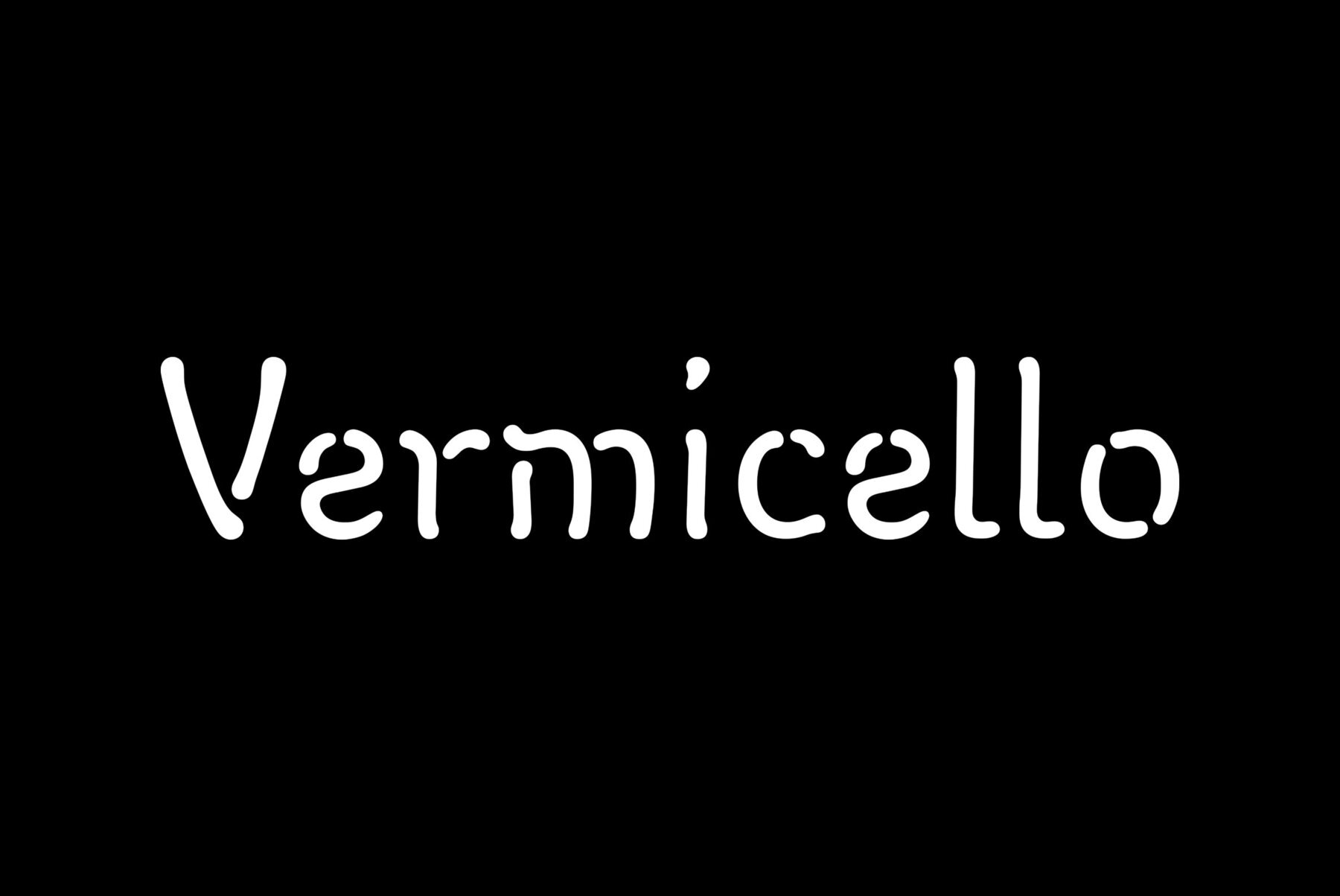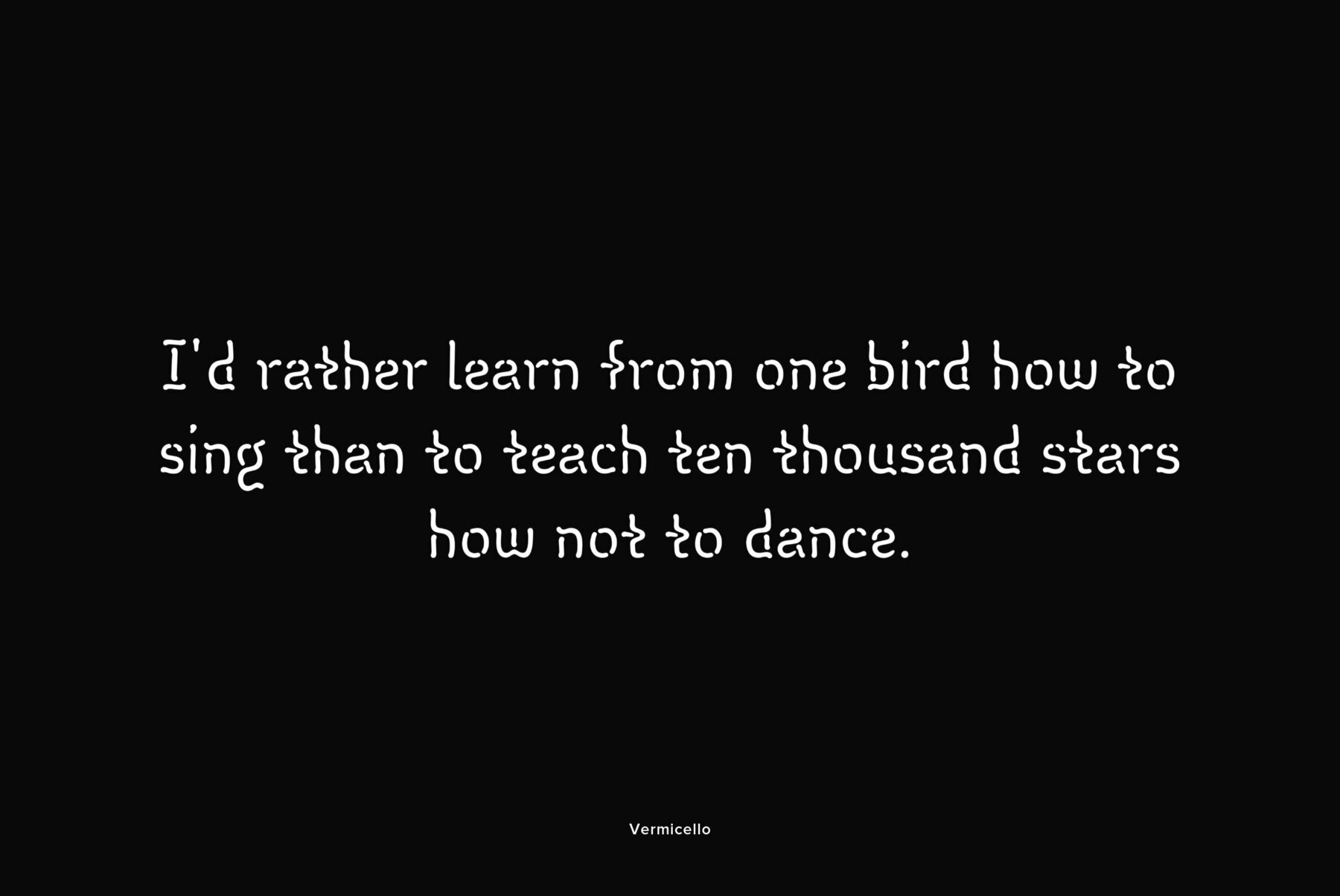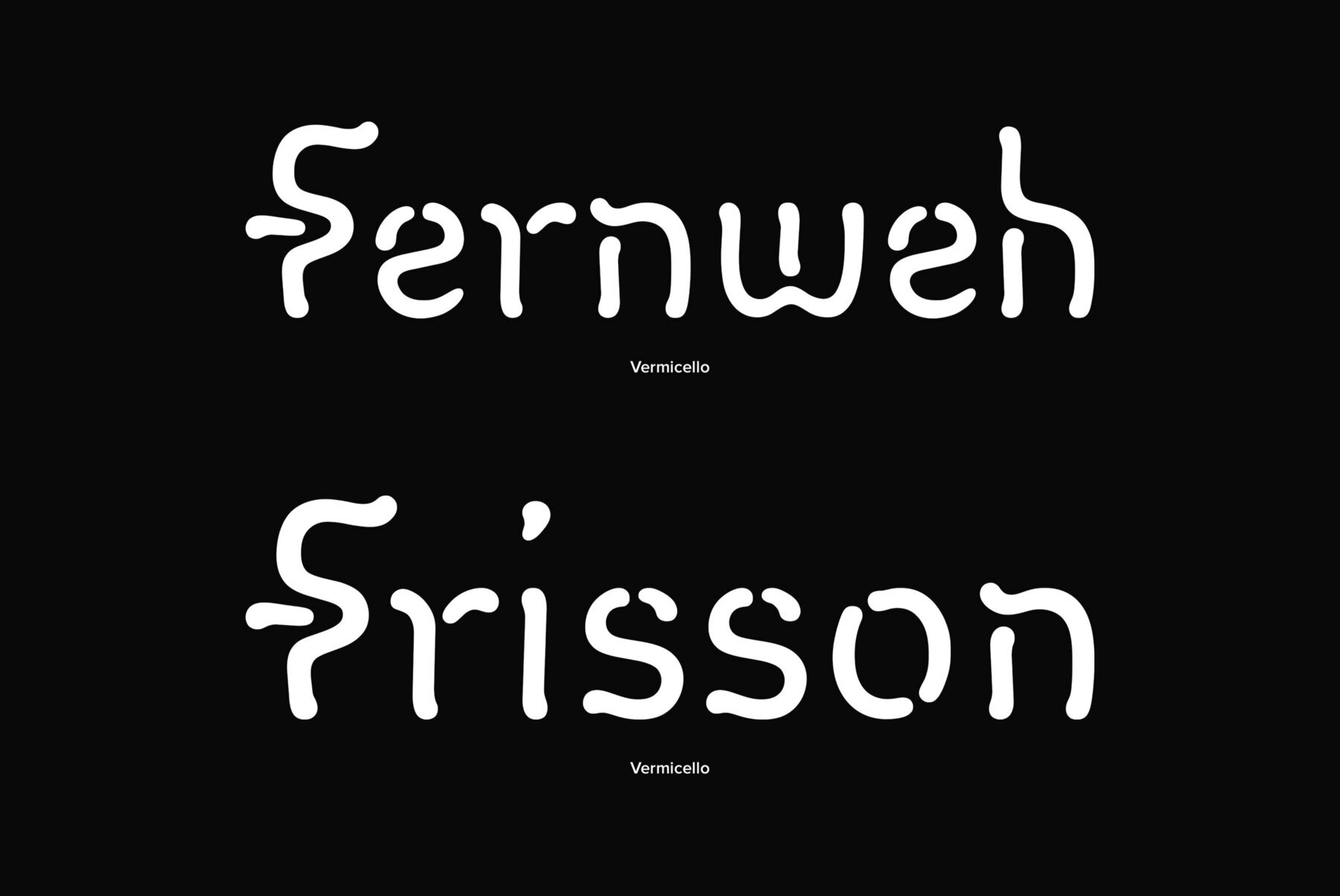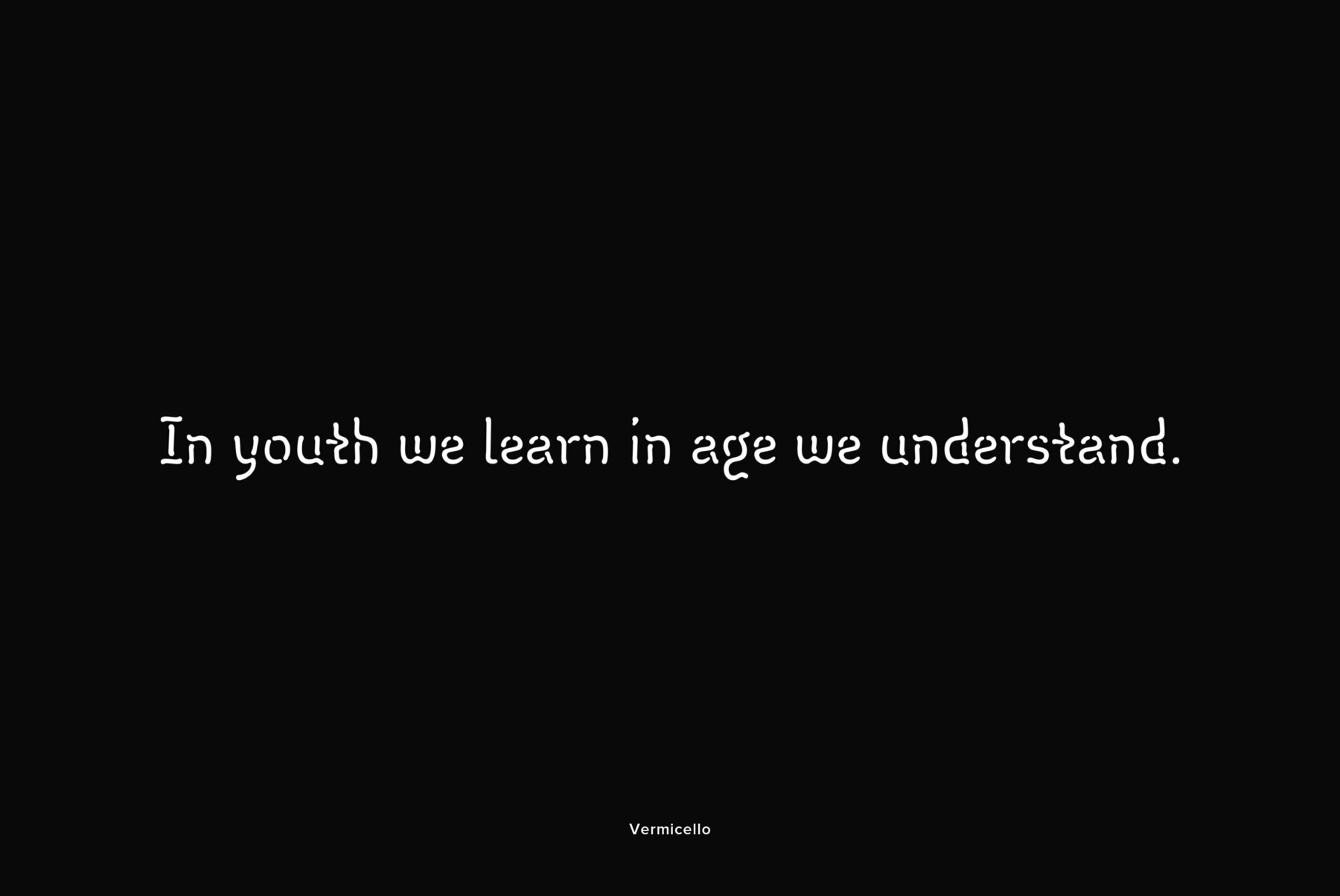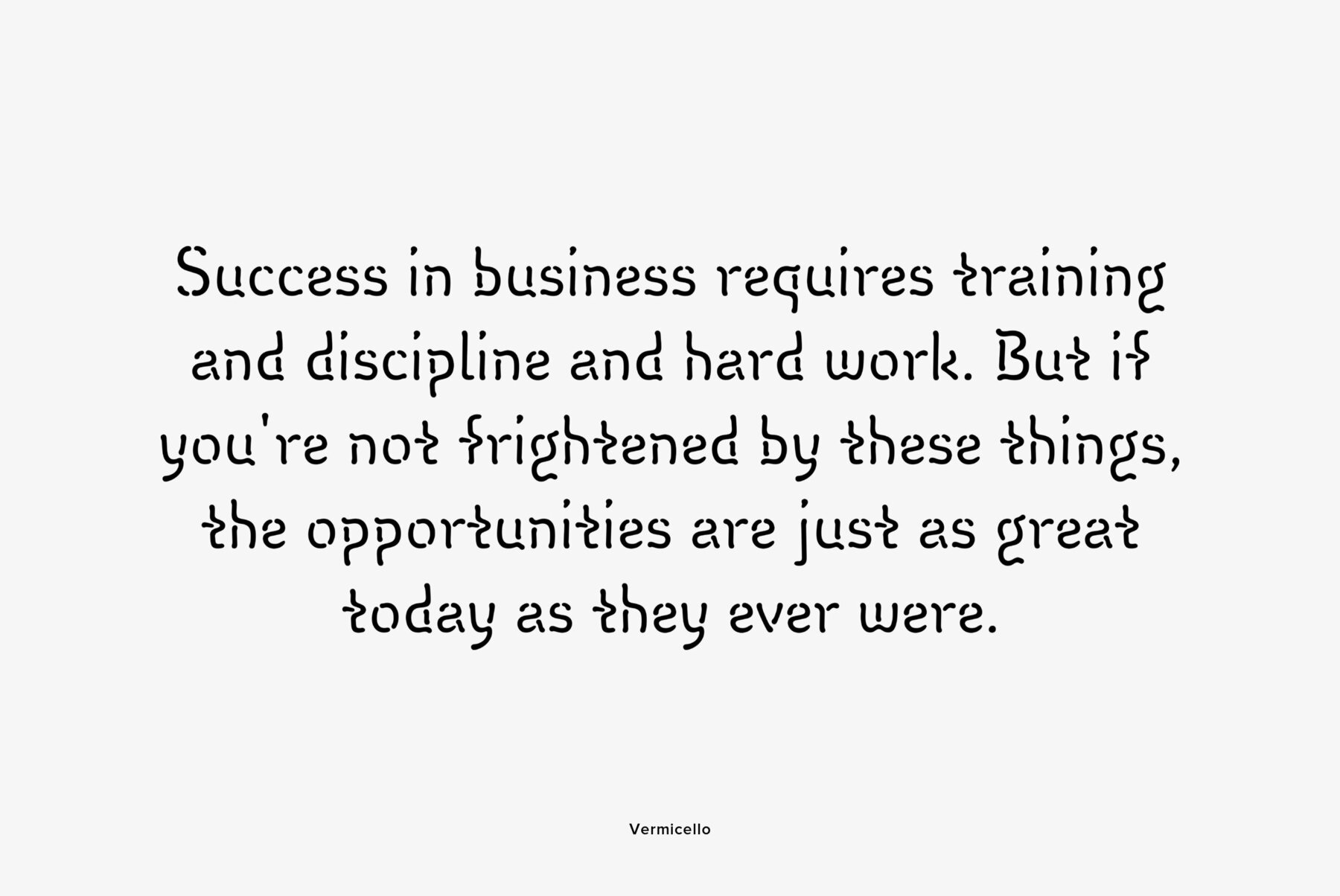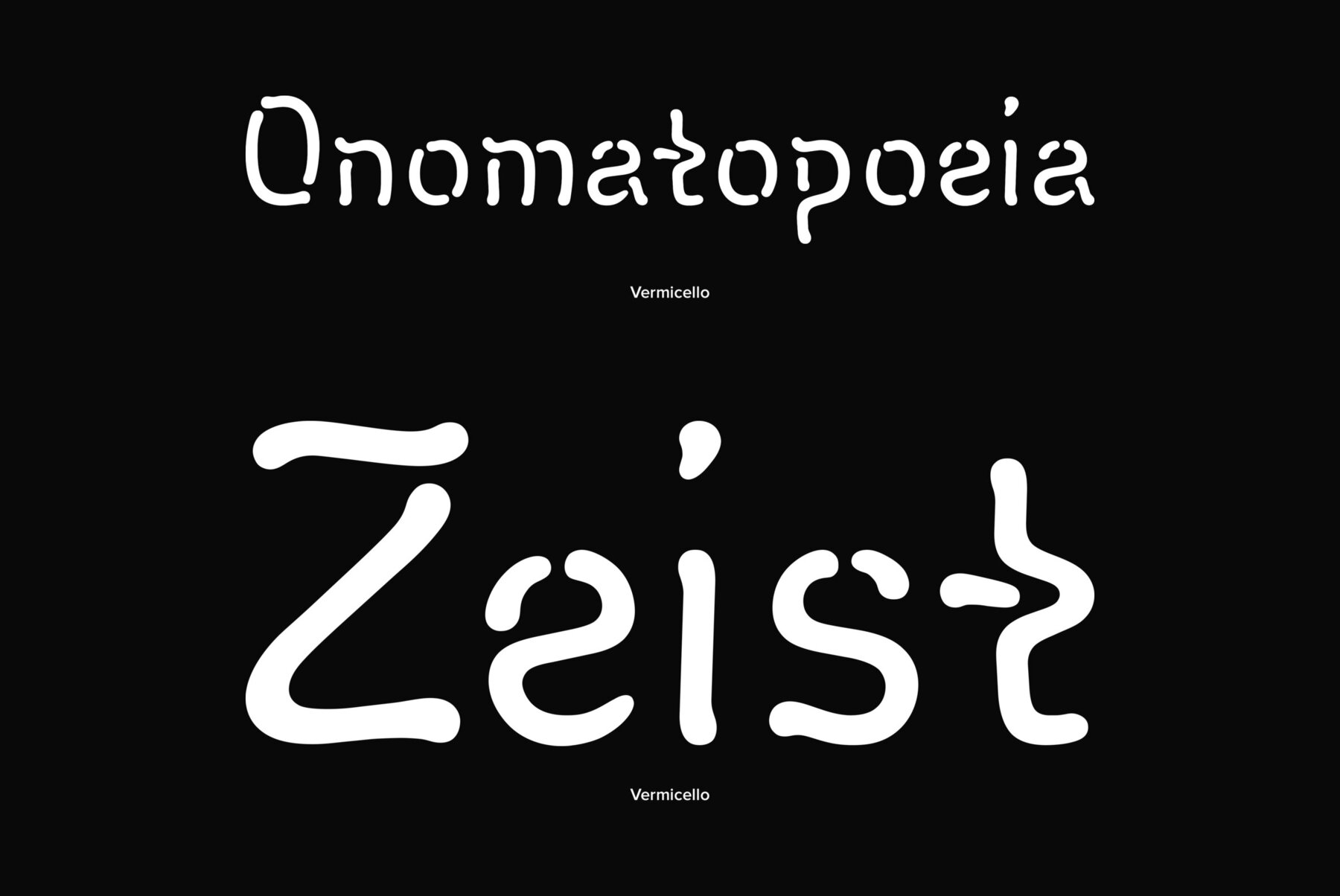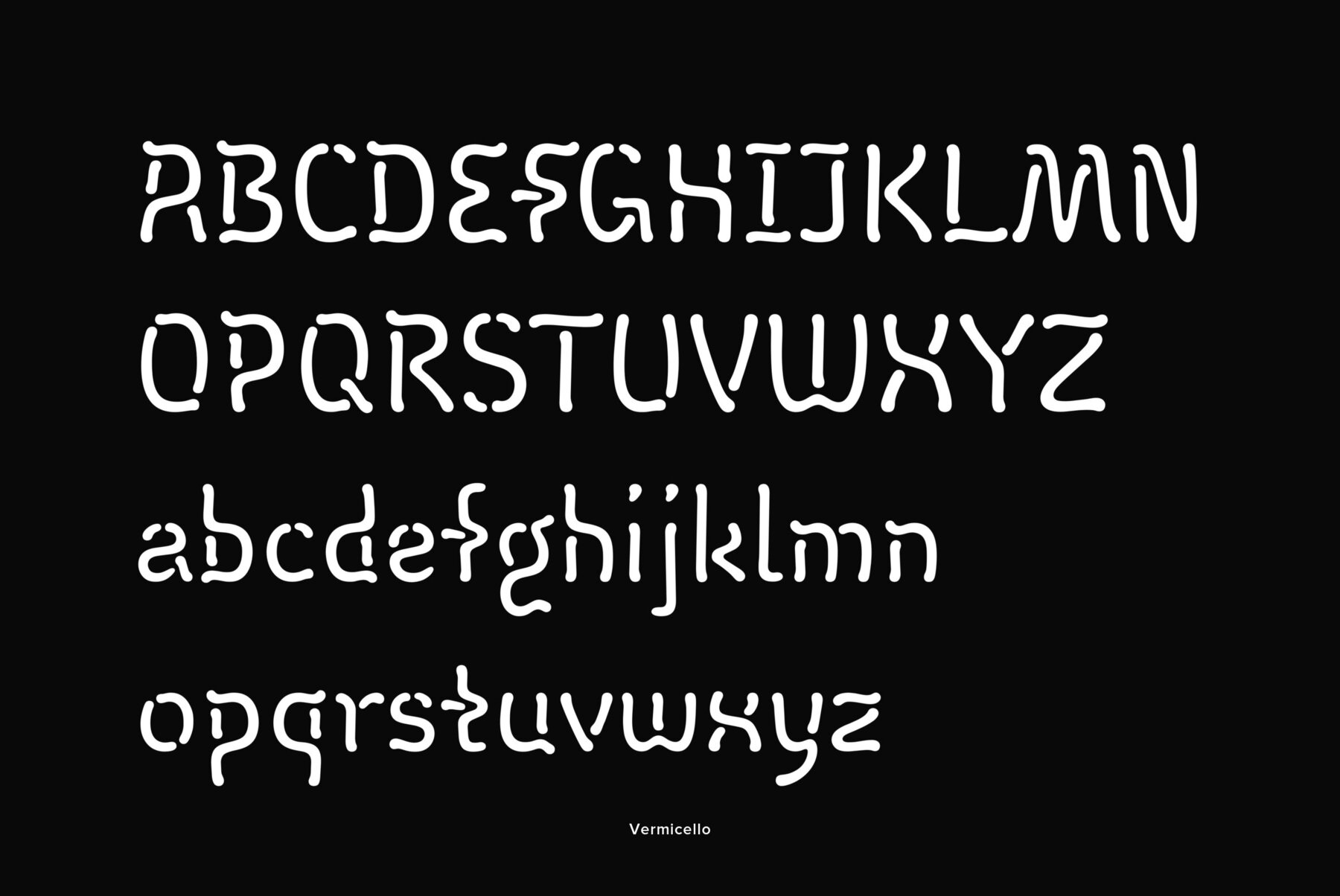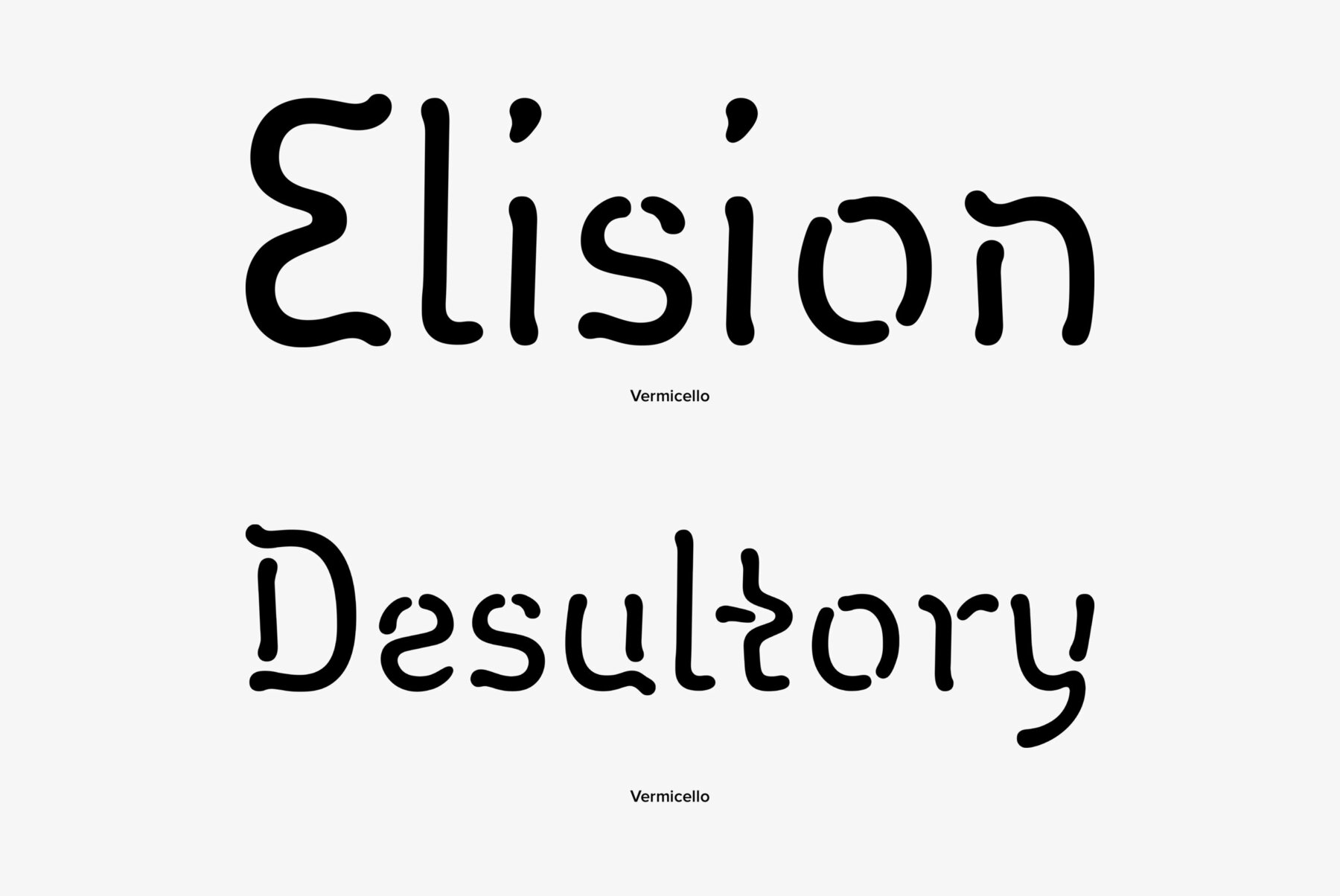
Vermicello
An original display typeface was designed for ParaType in 2007 by Isabella Chaeva. Informal handwriting shapes of letters are formed by several separate elements - traces of monoline writing tool like broad felt-tipped pen. The name of the font reveals the fact that curvy strokes resemble worms. For use in advertising and display typography.